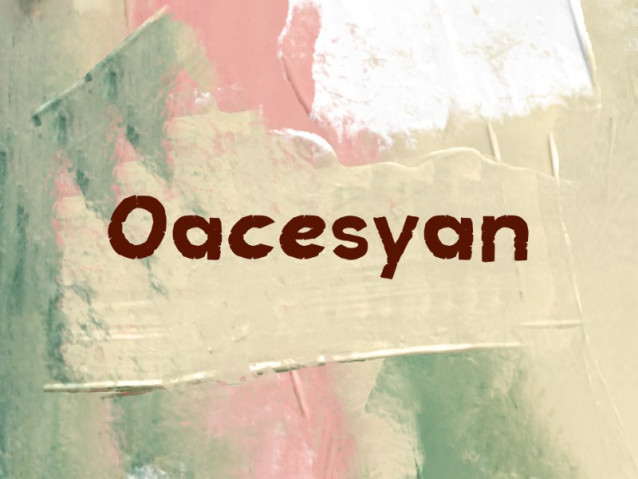
Oacesyan Font
Oacesyan Font is a simple and modern display font suitable for quotes, logos, headings, titles, and many more. Use it on any of your creative projects, and your designs will become outstanding!